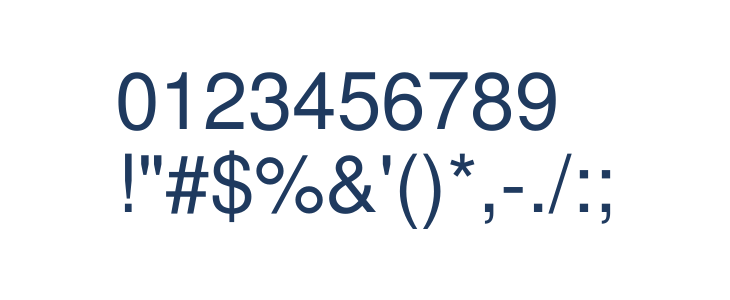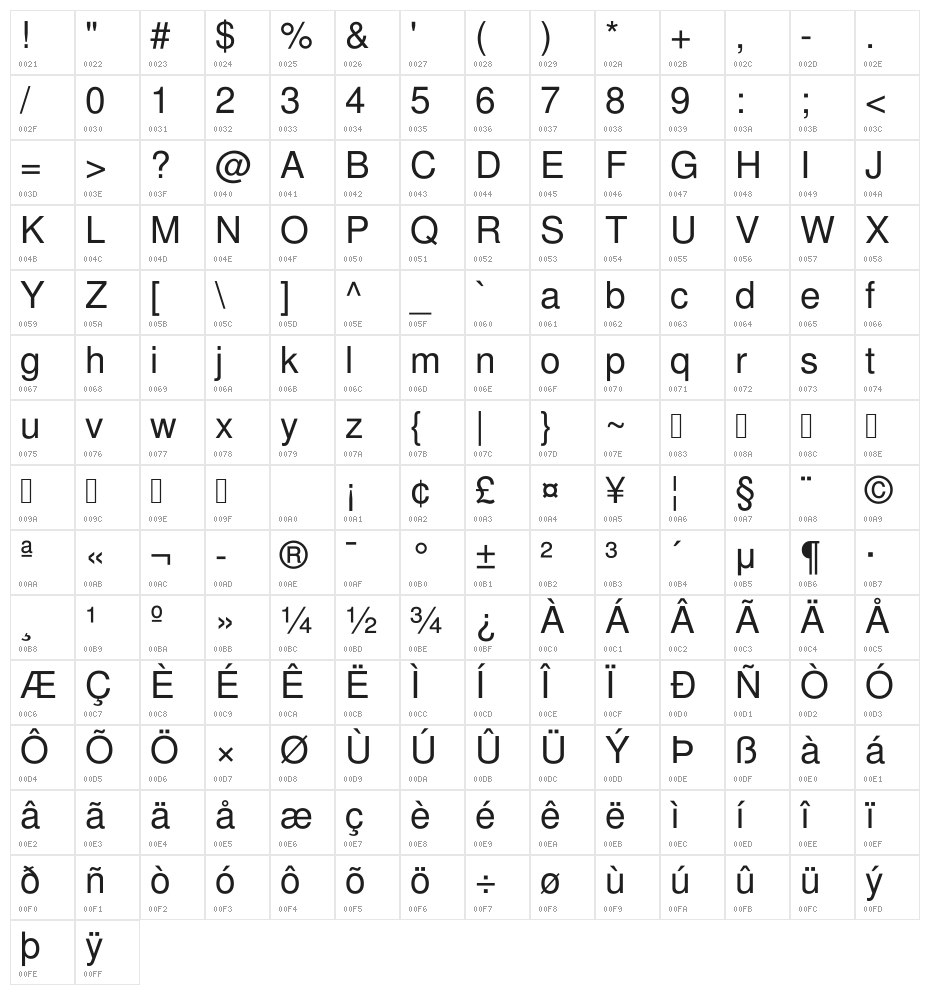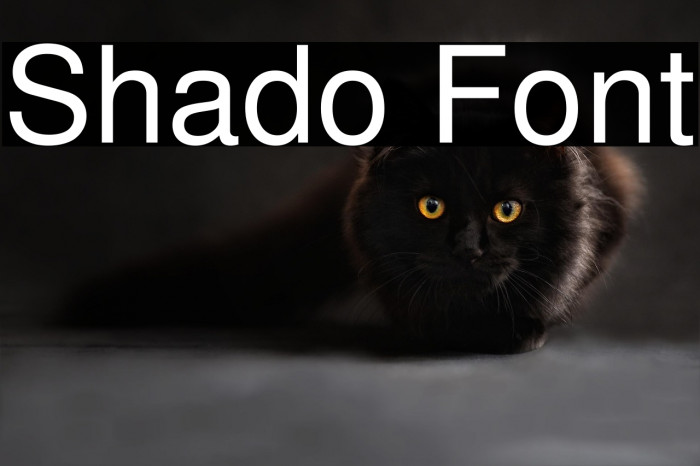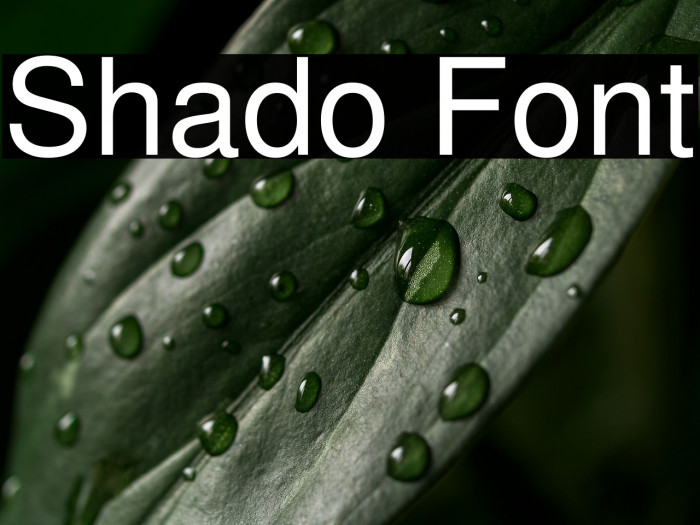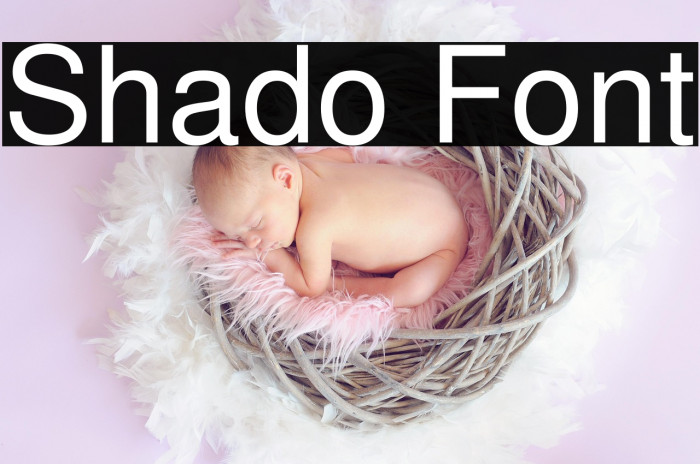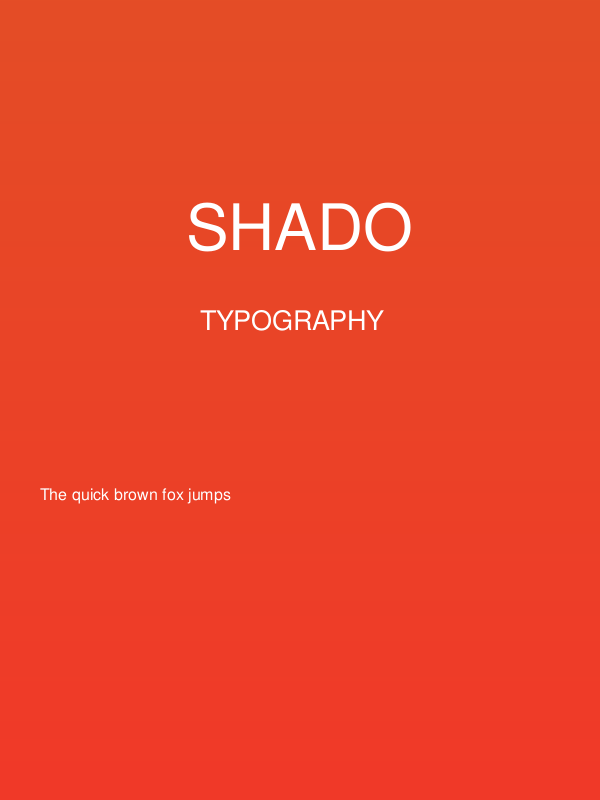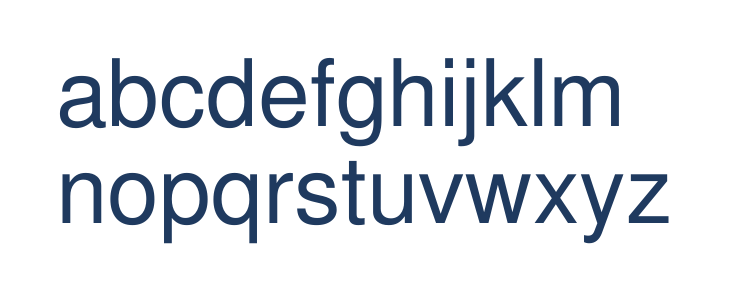
Shado Font
Shado Description
This font features a clean and modern sans-serif style, characterized by its uniform stroke width and geometric shapes. The uppercase letters are bold and assertive, while the lowercase letters maintain a consistent height and spacing, providing a balanced and harmonious appearance. The numerals are clear and easy to read, making them suitable for various applications. The special characters are well-defined, ensuring versatility in design projects. Overall, this font exudes a contemporary and professional aesthetic, making it ideal for digital and print media.